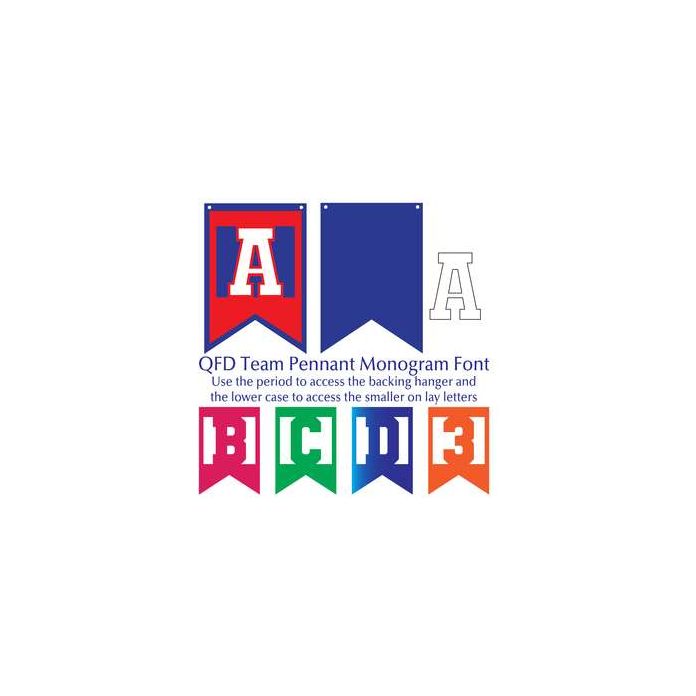
Spell out your team name or a simple Happy Birthday with this fun font. Layer lower case cap on the corresponding upper case letter and layer them both on the hanger. Access the hanger by using the period. See our detailed monograms tutorial by clicking the Instructions button. If you have any questions, please feel free to contact me!